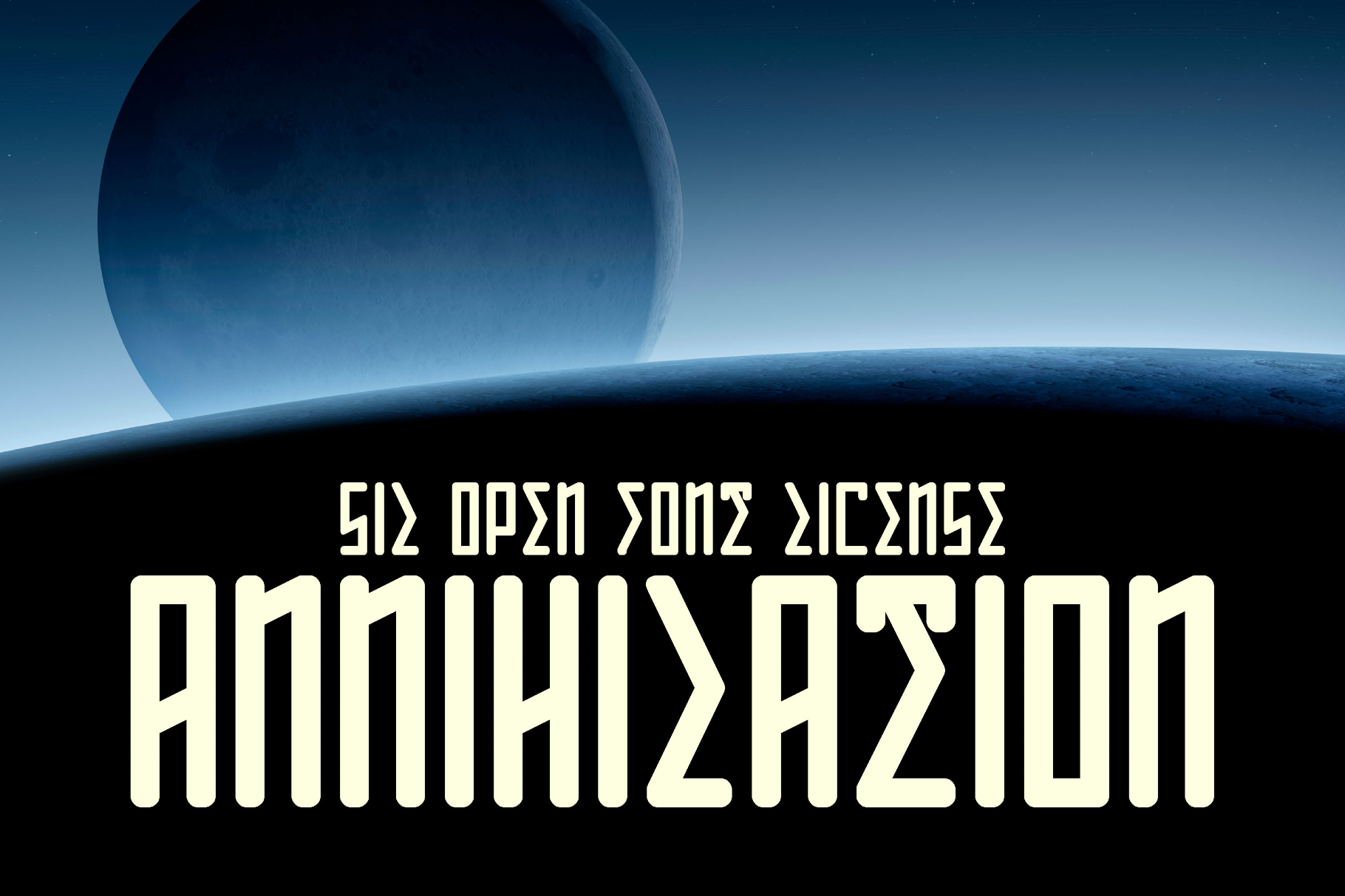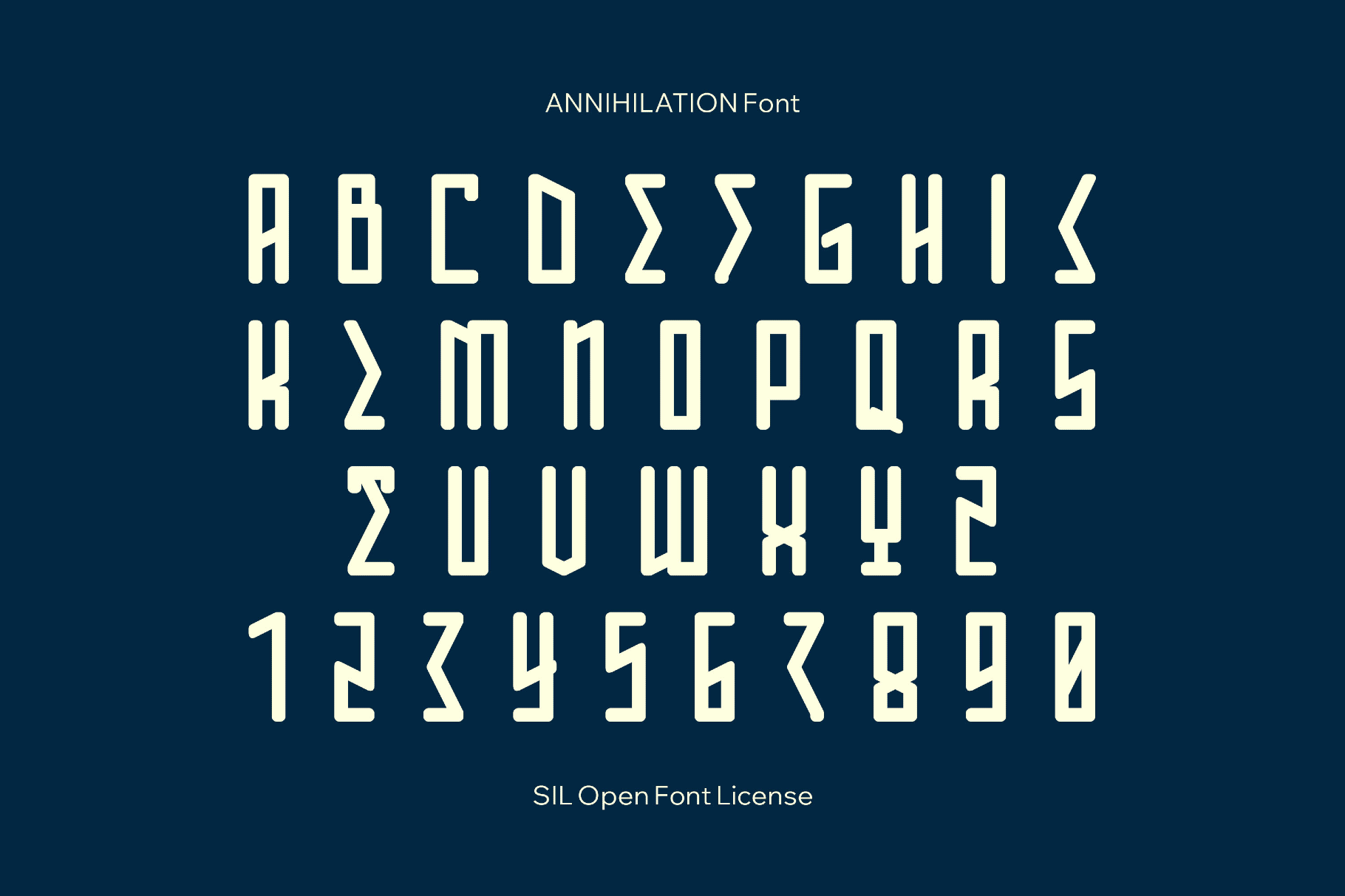
ANNIHILATION Font
ANNIHILATION
ANNIHILATION is a narrow, rounded sci-fi font that stacks tall caps into tight wordmarks with a clean, space-age rhythm. Strong verticals, softened corners, and close spacing make it perfect for album covers, game title screens, horror or sci-fi posters, aggressive branding concepts, trailer typography, merch graphics, and high-impact editorial headlines.